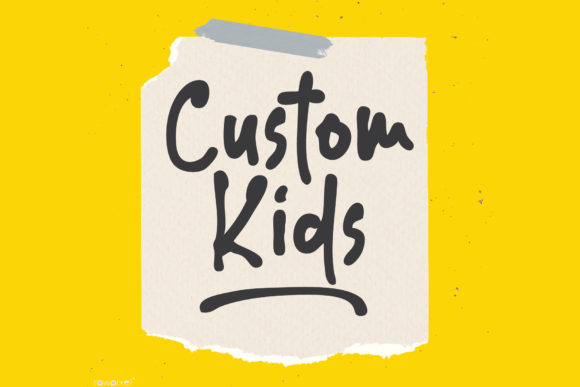
Introducing Custom Kids Font: The Perfect Handwritten Font for Your Creative Projects
Are you looking for a font that can add a relaxed touch to your creative projects? Look no further than Custom Kids Font, a simple, quirky, and adaptable handwritten font that’s perfect for a variety of applications. In this article, we’ll take a closer look at Custom Kids Font, its features, and how you can use it to elevate your designs.
What is Custom Kids Font?
Custom Kids Font is a handwritten font that’s designed to bring a casual and informal vibe to your designs. Its quirky and adaptable nature makes it a great choice for projects that require a relaxed touch. Whether you’re working on a kids’ project, a branding campaign, or a personal creative endeavor, Custom Kids Font is a great option to consider.
Key Features of Custom Kids Font
So, what makes Custom Kids Font so special? Here are some of its key features:
- Handwritten style: Custom Kids Font has a beautiful, handwritten style that’s perfect for adding a personal touch to your designs.
- Informal vibe: This font has a casual and informal vibe that’s great for projects that require a relaxed touch.
- Quirky and adaptable: Custom Kids Font is a quirky and adaptable font that can be used in a variety of contexts.
- Easy to read: Despite its handwritten style, Custom Kids Font is easy to read and understand, making it perfect for body text and headings.
Use Cases for Custom Kids Font
Custom Kids Font is a versatile font that can be used in a variety of contexts. Here are some use cases to consider:
- Kids’ projects: Custom Kids Font is perfect for kids’ projects, such as children’s books, educational materials, and kids’ websites.
- Branding campaigns: This font can be used in branding campaigns to add a casual and informal touch to your brand’s identity.
- Personal creative projects: Custom Kids Font is a great choice for personal creative projects, such as handmade cards, invitations, and DIY crafts.
- Digital products: This font can be used in digital products, such as ebooks, printables, and social media graphics.
Tips for Using Custom Kids Font
Here are some tips for using Custom Kids Font effectively:
- Use it for headings and titles: Custom Kids Font is perfect for headings and titles, where you want to add a touch of personality to your design.
- Pair it with other fonts: This font can be paired with other fonts to create a unique and interesting contrast.
- Experiment with colors and textures: Custom Kids Font looks great with a variety of colors and textures, so don’t be afraid to experiment and find the perfect combination for your design.
Benefits of Using Custom Kids Font
So, why should you choose Custom Kids Font for your next project? Here are some benefits to consider:
- Unique and creative: Custom Kids Font is a unique and creative font that can help your design stand out from the crowd.
- Versatile: Custom Kids Font is a versatile font that can be used in a variety of contexts, from kids’ projects to branding campaigns.
In conclusion, Custom Kids Font is a simple, quirky, and adaptable handwritten font that’s perfect for adding a relaxed touch to your creative projects. Its informal style and casual vibe make it a great choice for kids’ projects, branding campaigns, and personal creative endeavors. With its ease of use, versatility, and unique creative style, Custom Kids Font is a great addition to any designer’s font collection.
- What is Custom Kids Font?: Custom Kids Font is a handwritten font designed for creative projects that require a relaxed touch.